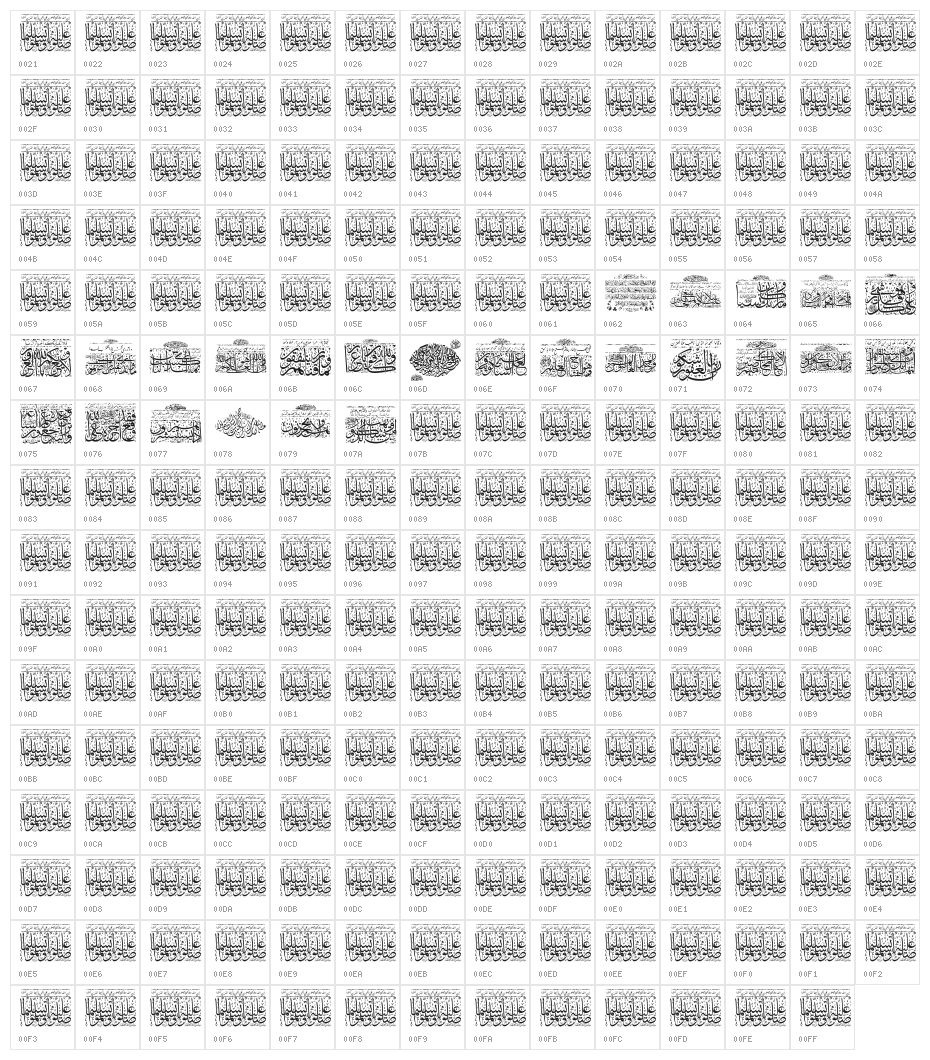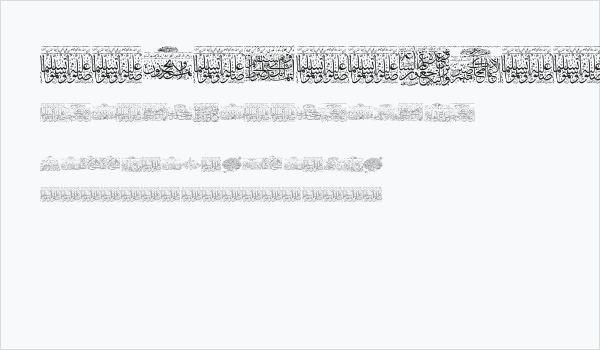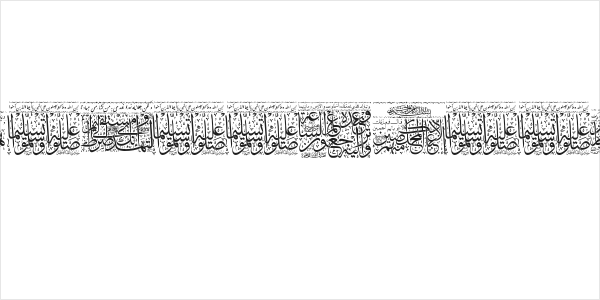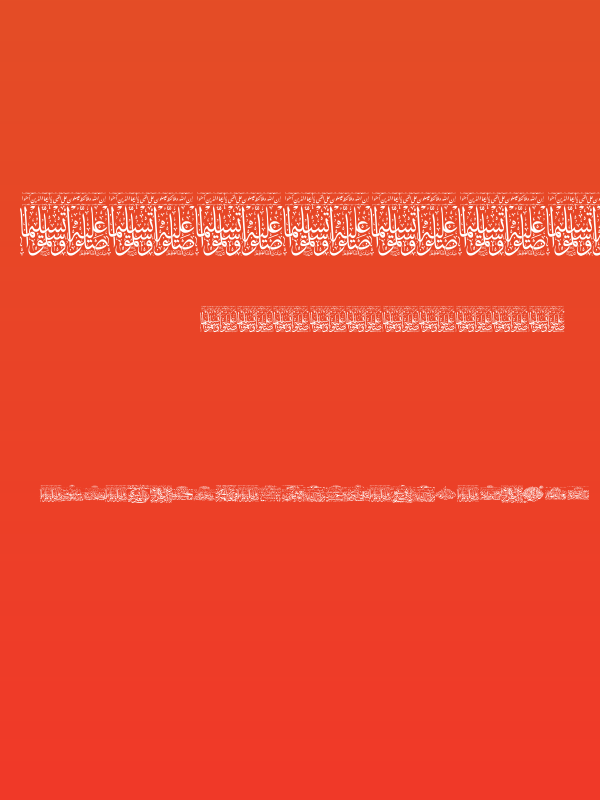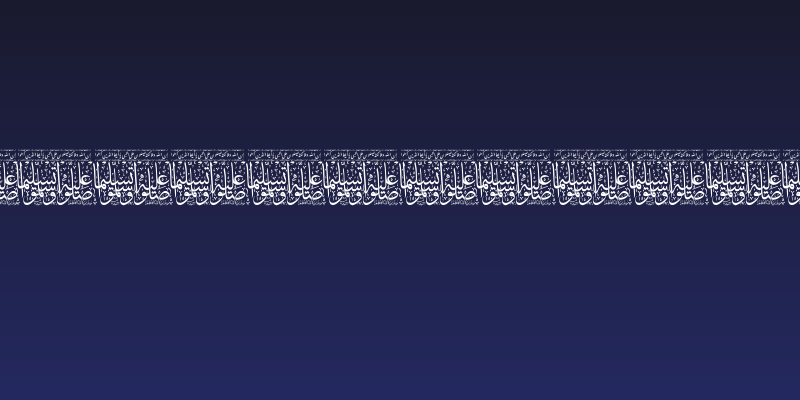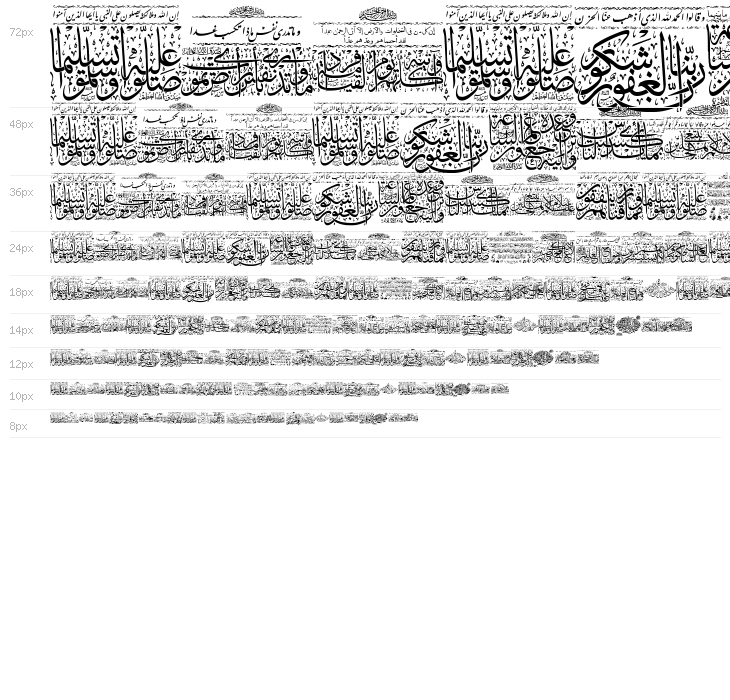
Aayat Quraan 6 Font
Aayat Quraan 6 Description
Highly ornate Arabic script with intricate decorative elements, featuring dense calligraphic strokes and elaborate flourishes, often used in religious or ceremonial contexts. The glyphs are closely spaced, with high contrast between thick and thin strokes, and the overall appearance is complex and traditional.
| Overall Style | Decorative, Traditional, Religious |
| Use Case | Religious manuscripts, ceremonial headings, decorative panels |
| Proposed Projects | Religious texts, ceremonial documents, decorative borders, historical reproductions, Islamic art. |